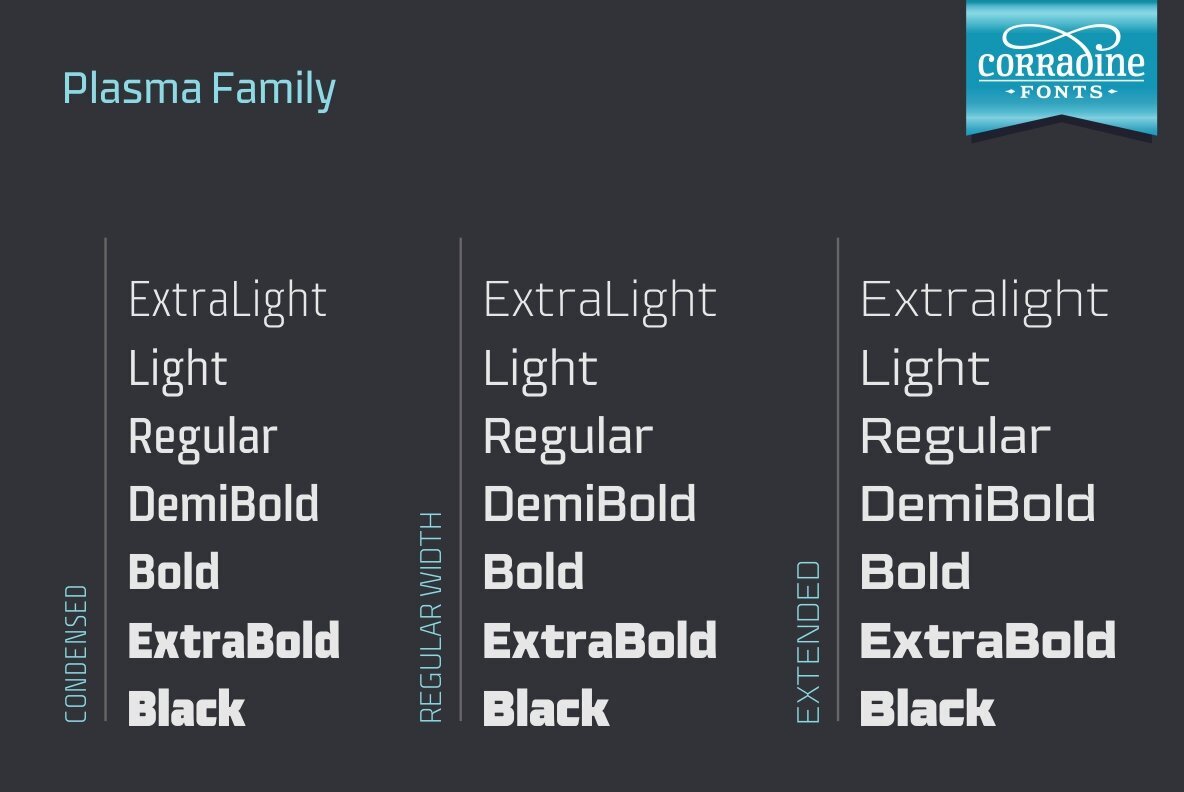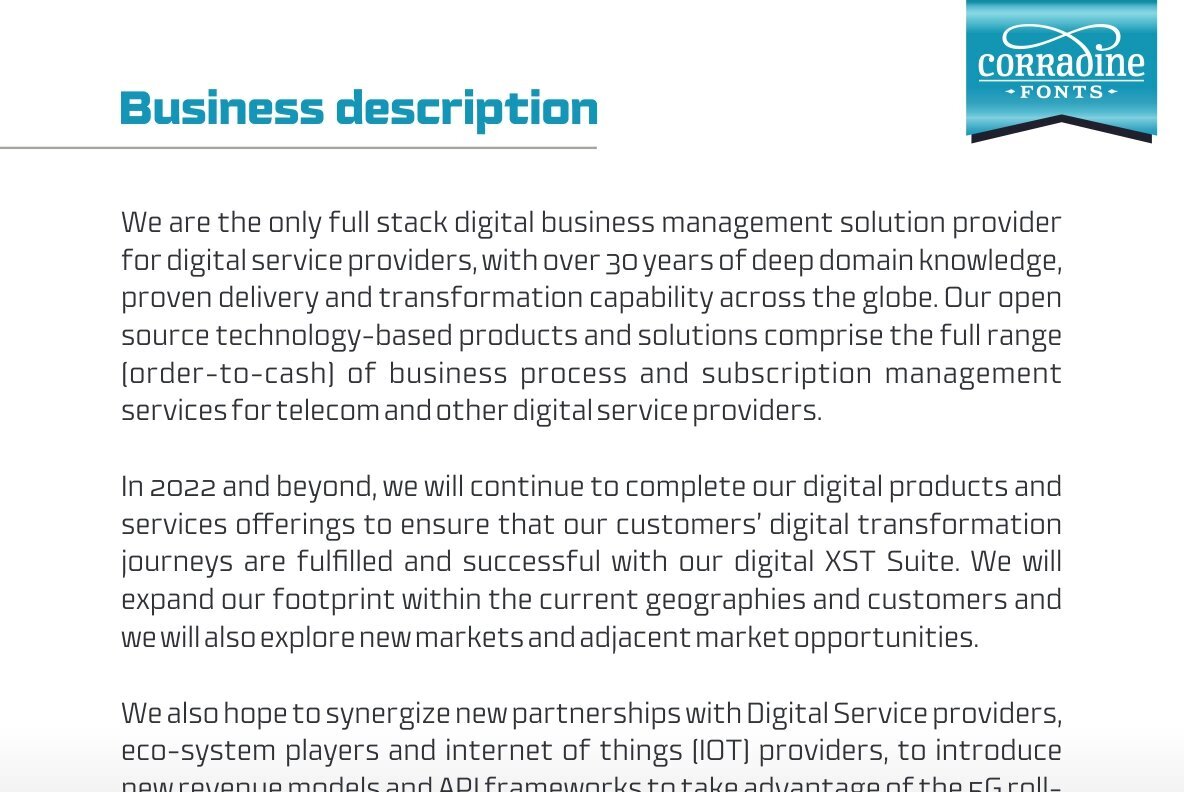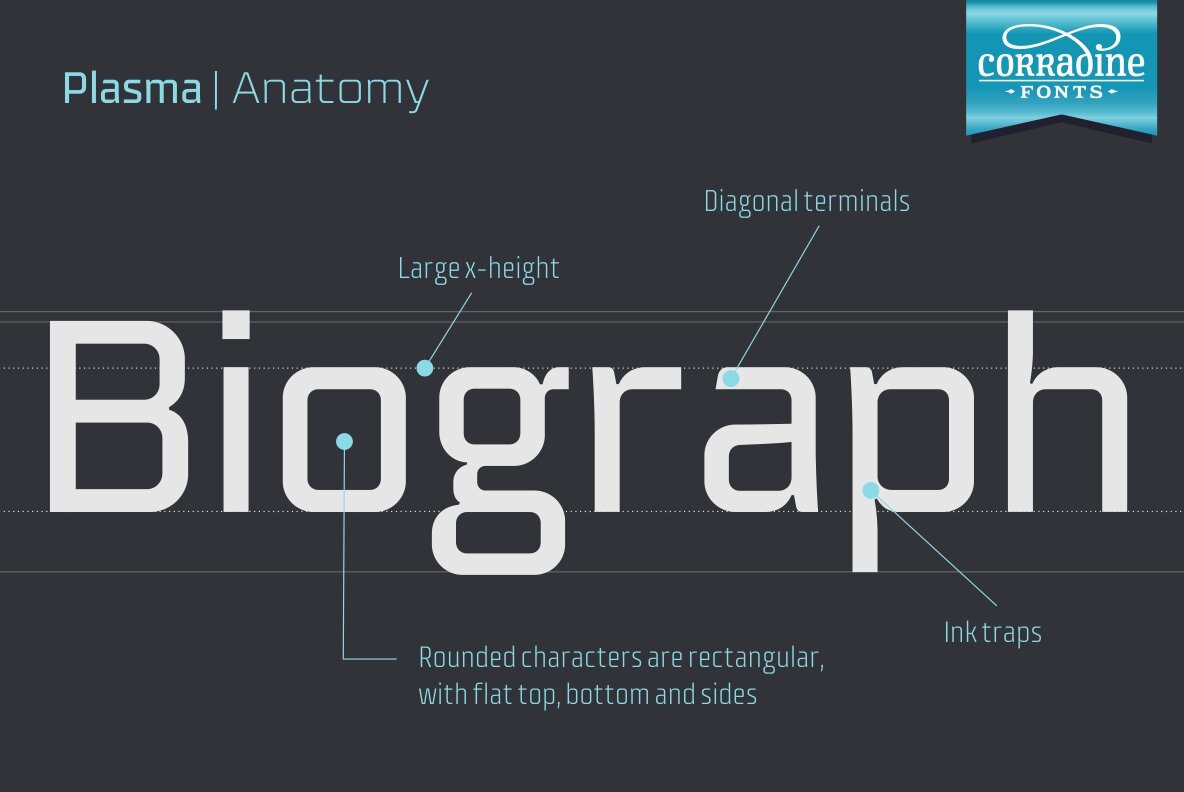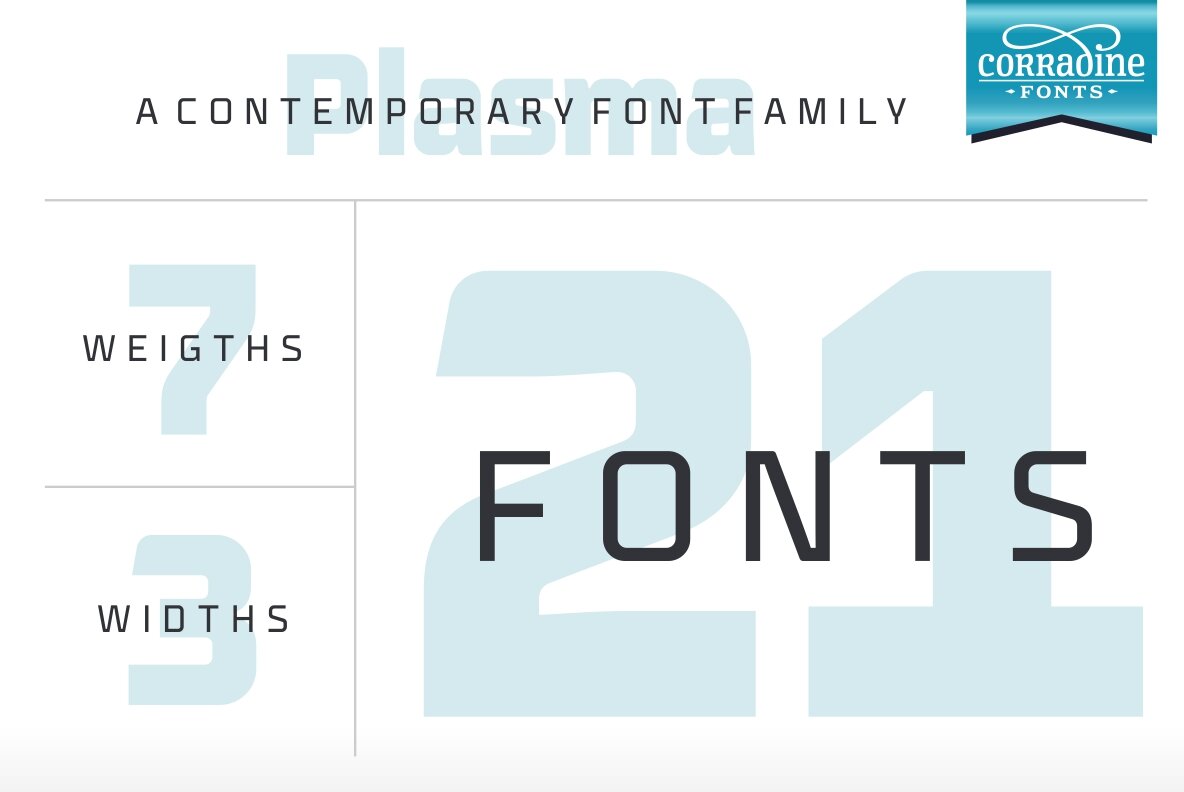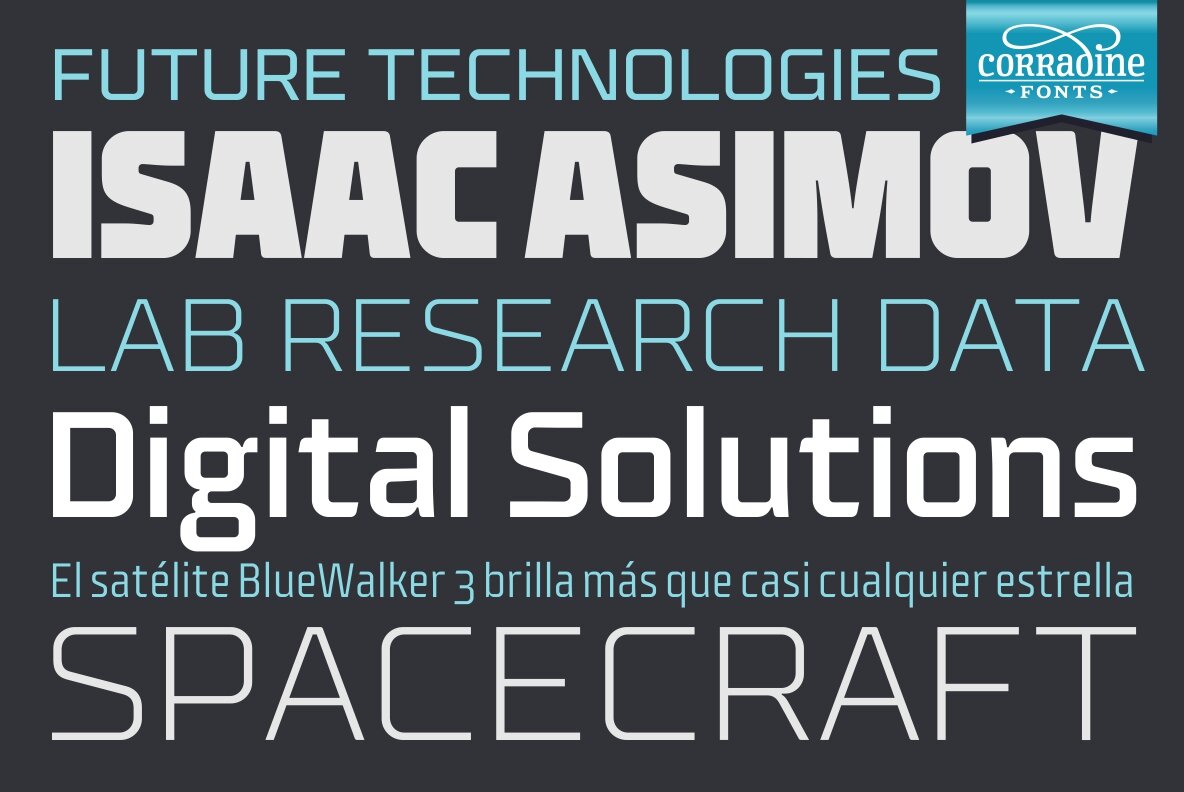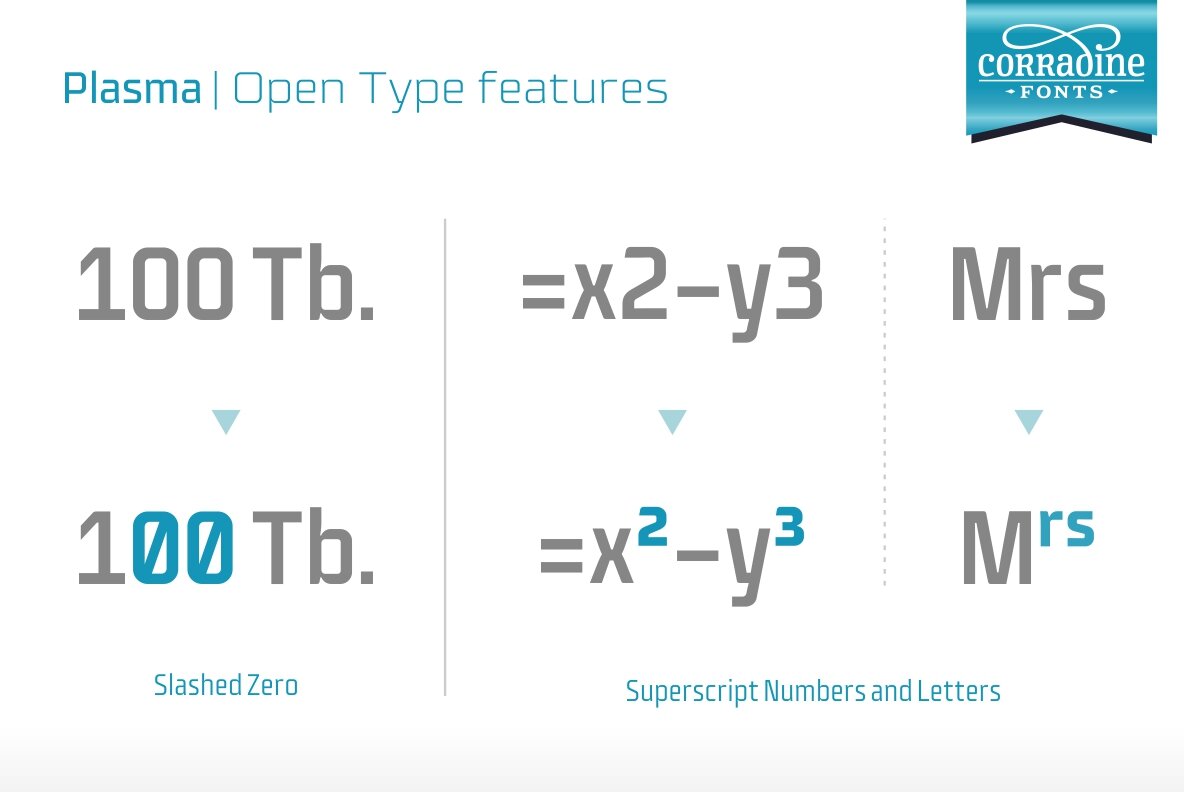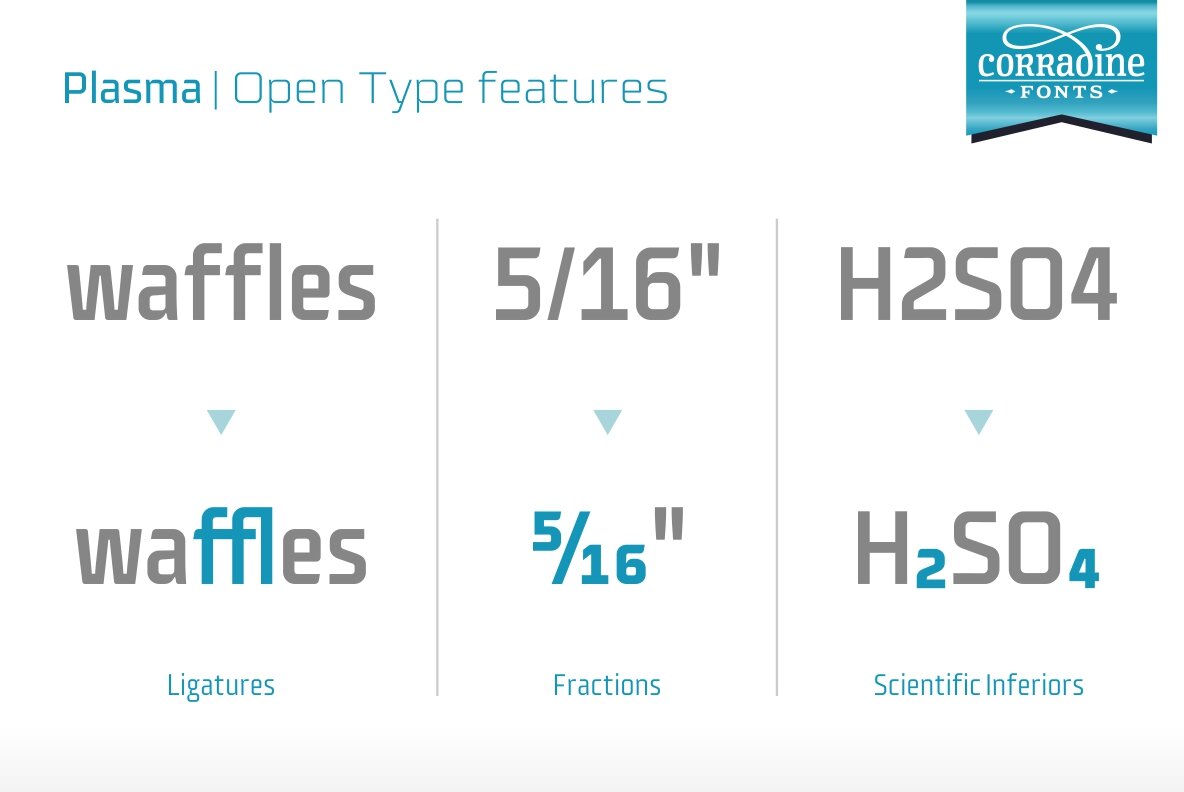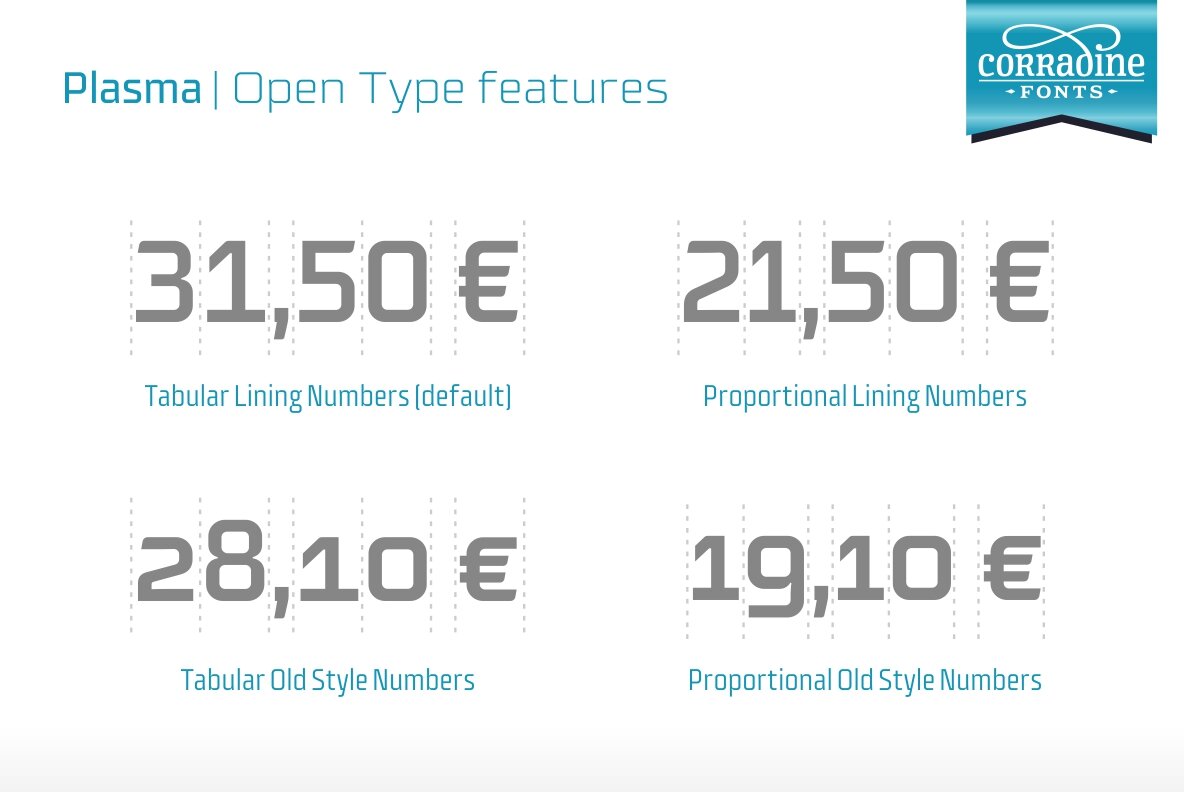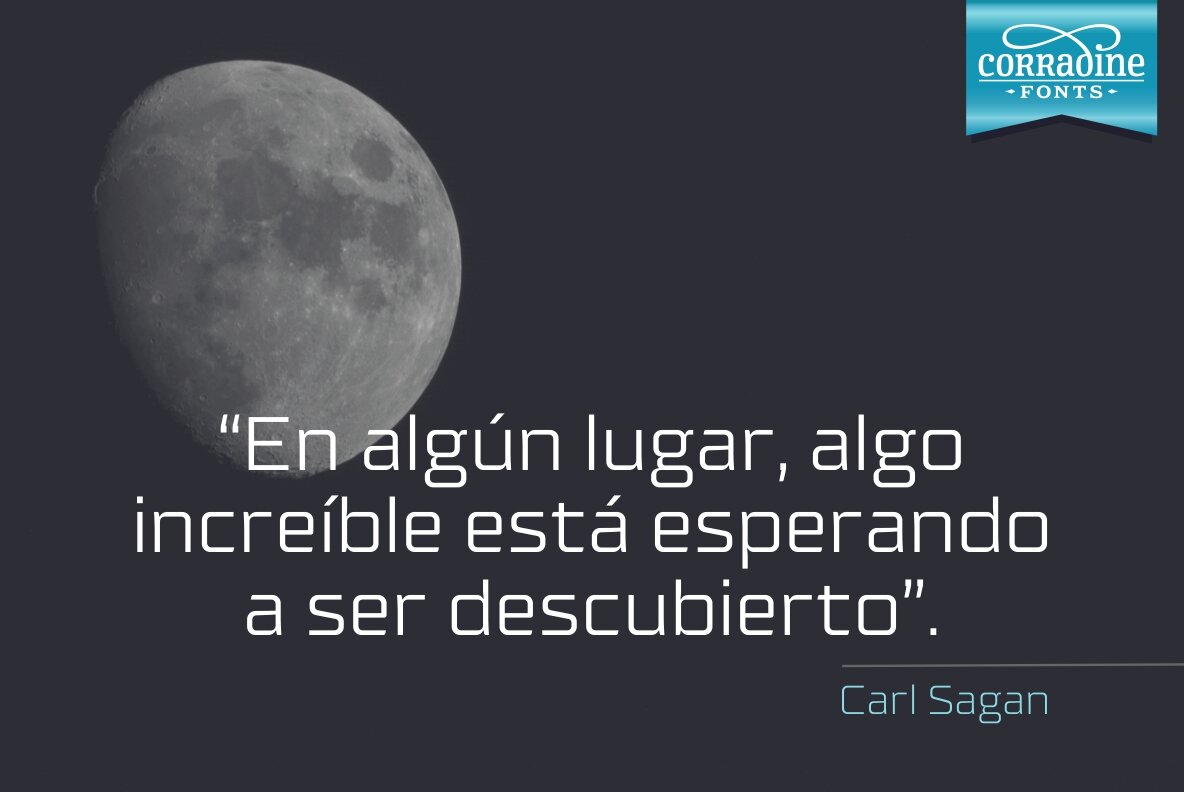
Plasma Font
Plasma is a contemporary font family, characterized by its clean and geometric appeareance.
As a square based style, Plasma has a technological and futuristic feeling, so is suitable for a very wide range of uses, such as editorial, corporate, packaging, posters and web design.
Plasma Family consists in 21 fonts, which comes in seven weights, and three different wides. Each font has 516 characters, and can be managed by using its Open Type features, and supports Western European, Central/Eastern European, Baltic, Turkish and Romanian Languages.